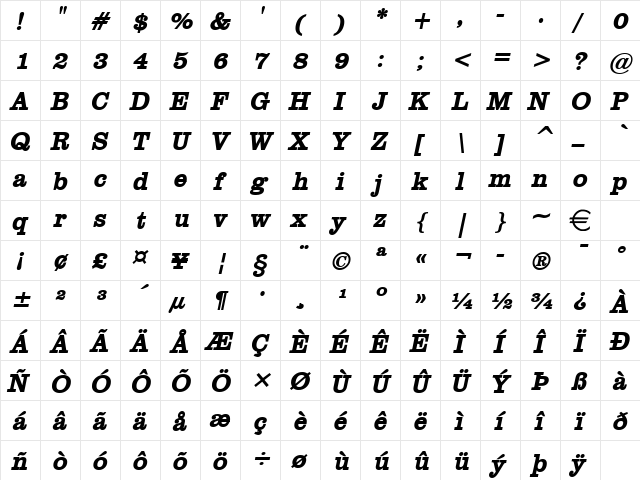
Clare BoldItalic
Design Context for Clare Typeface
Clare takes a measured approach to typography — its balanced proportions and neutral character make it a reliable workhorse for both digital and print work. The dynamic lean of this cut emphasises speed and emphasis in any layout. The heavy weight commands attention and anchors typographic hierarchies.
Pro Tip: Use Clare for emphasis, pull quotes, and subheadings where its slanted energy can add rhythm to the layout.